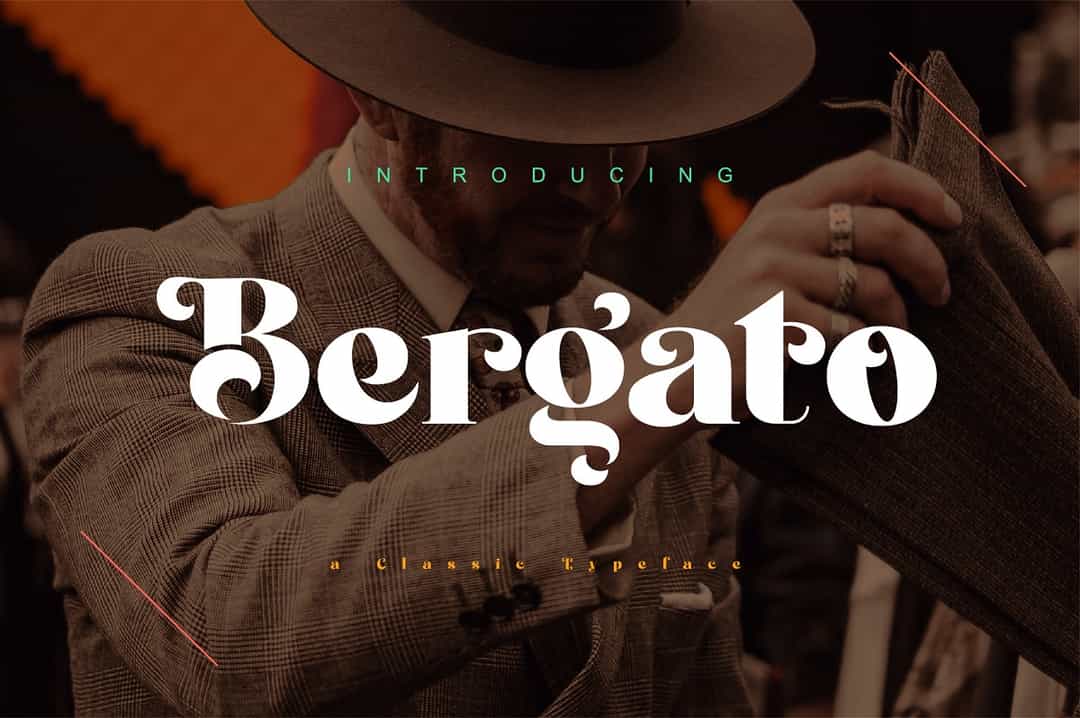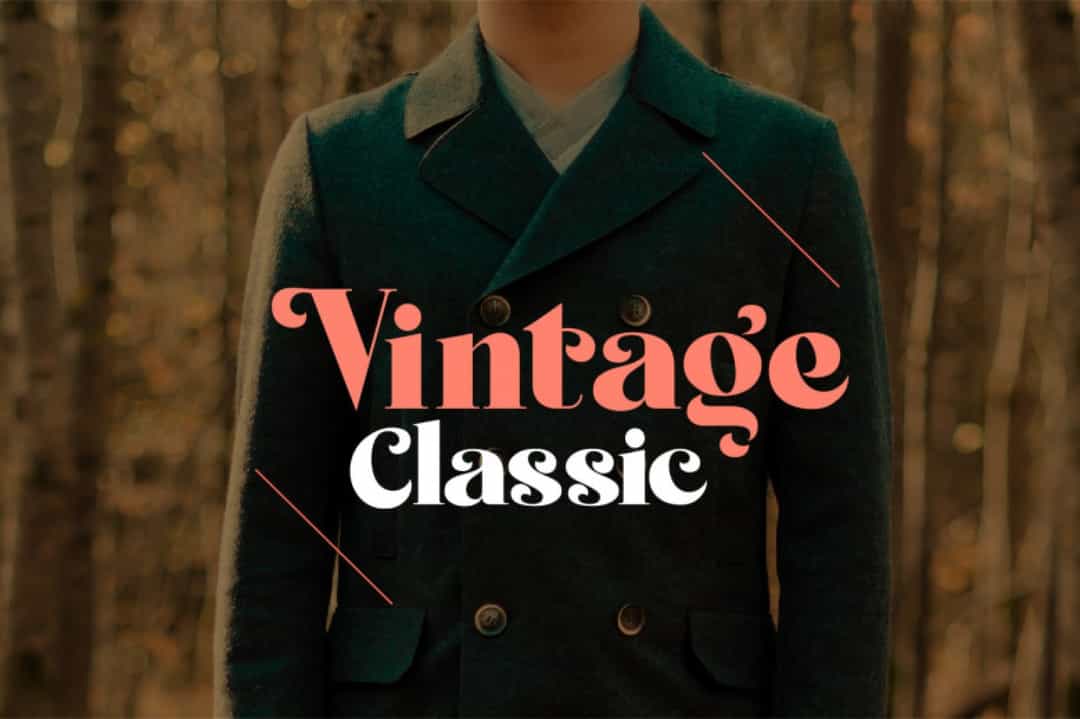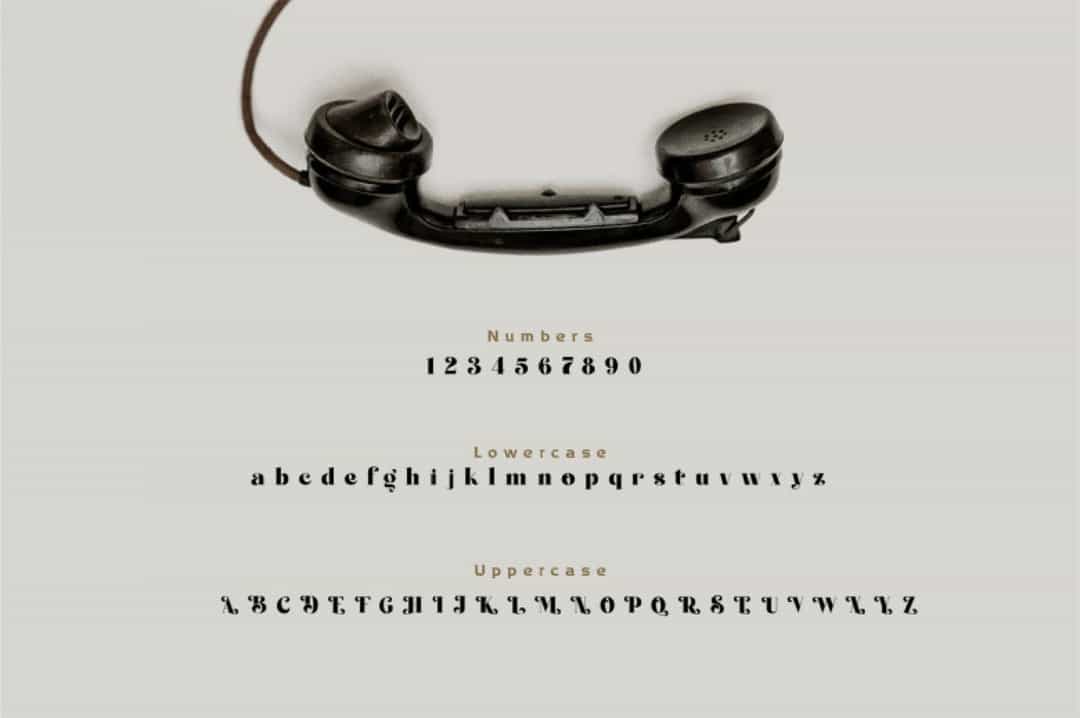
Bergato Vintage Classic is an eye-catching, stylish, and unique serif font. Perfect for greeting cards and headlines alike, its romantic vibe will add warmth and romance to your designs.